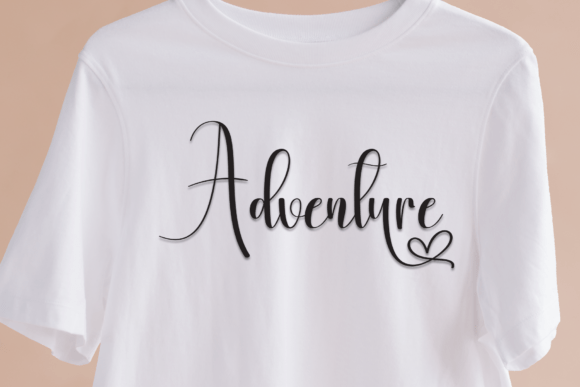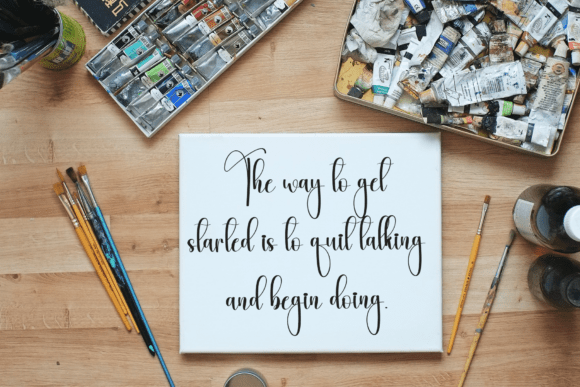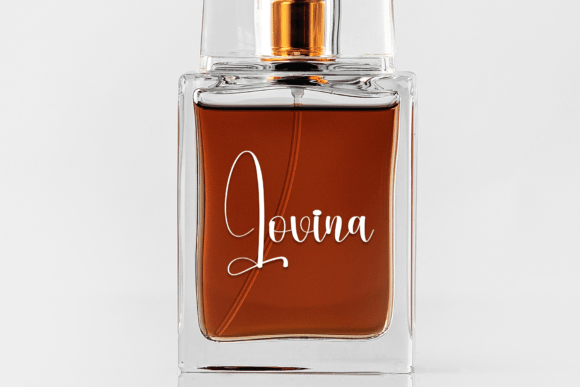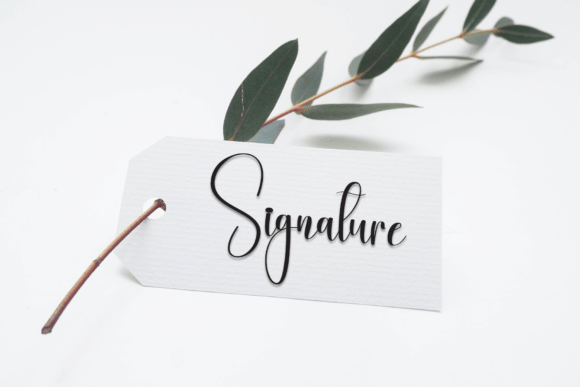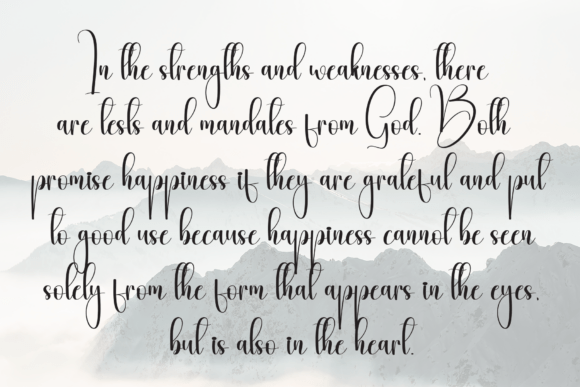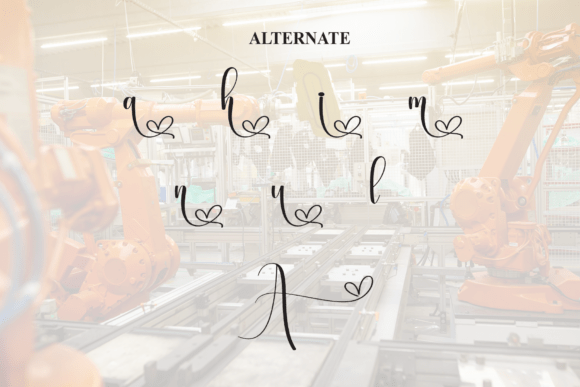
Introducing Sweet Whimsy: The Ultimate Automatic Font for Playful Designs
Are you tired of using the same old fonts for your designs? Look no further! We’re thrilled to introduce Sweet Whimsy, a charming handcrafted display font that combines sweetness and whimsy to bring a delightful twist to your creative projects. This beautiful font is perfect for designers and crafters seeking a playful touch for their wedding invitations, heartfelt cards, and other designs.
A Delightful Fusion of Friendliness and Fun
Sweet Whimsy is more than just a font – it’s an experience. Every stroke, every curve, and every detail has been carefully crafted to evoke joyful creativity and casual elegance. This attractive typographic choice seamlessly combines friendliness and fun, making it perfect for designs that require a personal touch. Whether you’re working on a wedding invitation, a greeting card, or a DIY project, Sweet Whimsy is sure to bring a smile to your face and a touch of magic to your designs.
What Makes Sweet Whimsy Special?
So, what sets Sweet Whimsy apart from other fonts? Here are a few features that make it truly special:
- Handcrafted with love: Every letter, every stroke, and every detail has been carefully crafted to ensure a unique and personal touch.
- Delightful fusion of sweetness and whimsy: Sweet Whimsy combines the perfect balance of sweetness and playfulness to create a truly unique typographic experience.
- Perfect for playful designs: This font is ideal for designers and crafters seeking a playful touch for their wedding invitations, heartfelt cards, and other designs.
- Combines friendliness and fun: Sweet Whimsy seamlessly blends friendliness and fun to create a font that’s both approachable and playful.
Use Sweet Whimsy for Your Next Project
Ready to add a touch of whimsy to your designs? Sweet Whimsy is perfect for a variety of projects, including:
- Wedding invitations: Add a touch of romance and playfulness to your wedding invitations with Sweet Whimsy.
- Heartfelt cards: Create personalized and heartfelt cards for special occasions with this charming font.
- DIY projects: Add a touch of whimsy to your DIY projects, such as party decorations, gift tags, and more.
- Digital designs: Use Sweet Whimsy for your digital designs, such as social media graphics, blog headers, and more.
Why Choose Sweet Whimsy?
With so many fonts to choose from, why choose Sweet Whimsy? Here are a few reasons why this font stands out:
- Unique and playful: Sweet Whimsy is a one-of-a-kind font that adds a touch of playfulness to your designs.
- Easy to read: Despite its playful nature, Sweet Whimsy is easy to read and understand, making it perfect for a variety of designs.
- Versatile: This font can be used for a range of projects, from wedding invitations to digital designs.
- High-quality: Sweet Whimsy is a high-quality font that’s been carefully crafted to ensure a professional finish.
Get Ready to Fall in Love with Sweet Whimsy
In conclusion, Sweet Whimsy is a charming handcrafted display font that’s perfect for designers and crafters seeking a playful touch for their designs. With its unique fusion of sweetness and whimsy, this font seamlessly combines friendliness and fun to create a truly unique typographic experience. Whether you’re working on a wedding invitation, a heartfelt card, or a DIY project, Sweet Whimsy is sure to bring a smile to your face and a touch of magic to your designs.